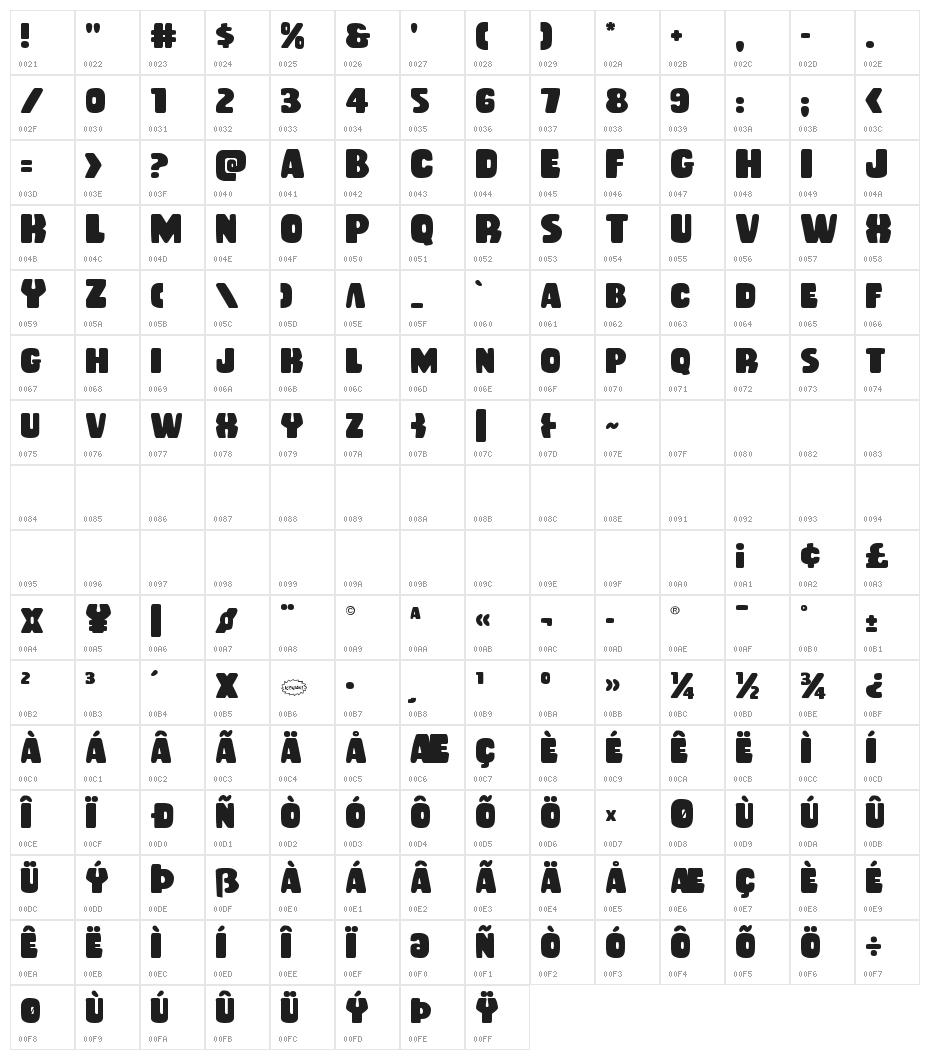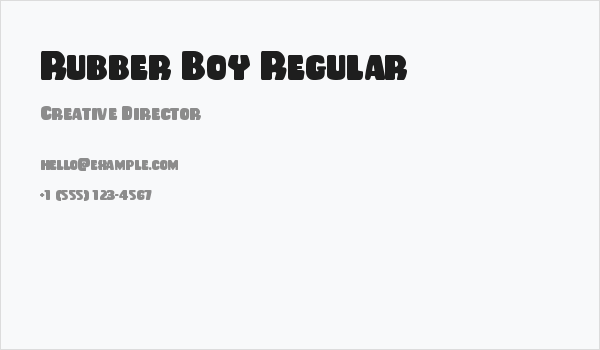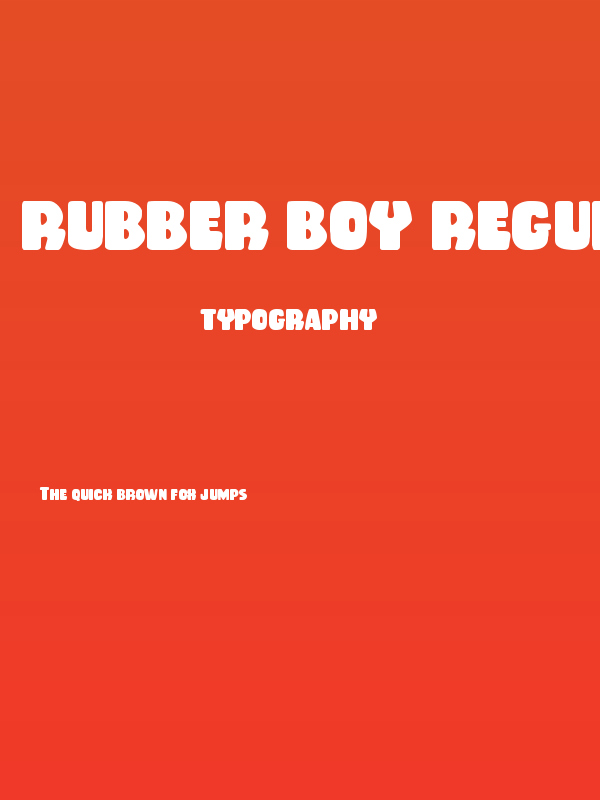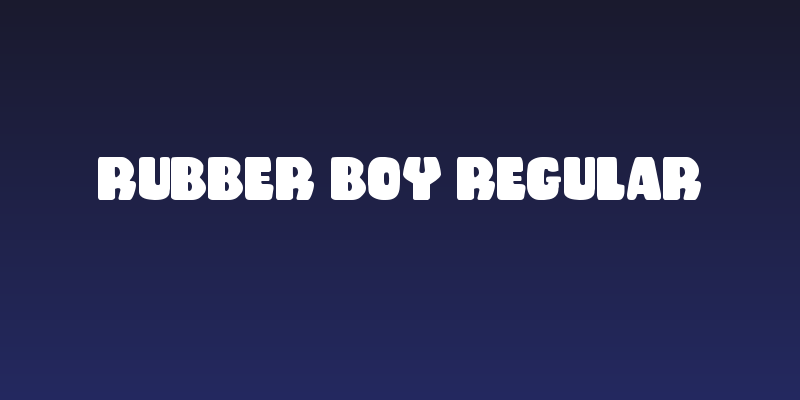
Rubber Boy Regular Font
Rubber Boy Regular Description
This font features bold, rounded characters with a playful and chunky appearance. The letters are uniformly thick, giving them a strong presence on the page. The rounded edges soften the overall look, making it approachable and friendly. The numbers and special characters maintain this consistent style, ensuring a cohesive appearance across all text elements. The font's design is reminiscent of retro or vintage styles, yet it maintains a modern appeal due to its simplicity and clarity.
| Overall Style | Playful, Retro |
| Proposed Projects | Ideal for children's books, playful branding, posters, and any project requiring a fun, approachable aesthetic. |